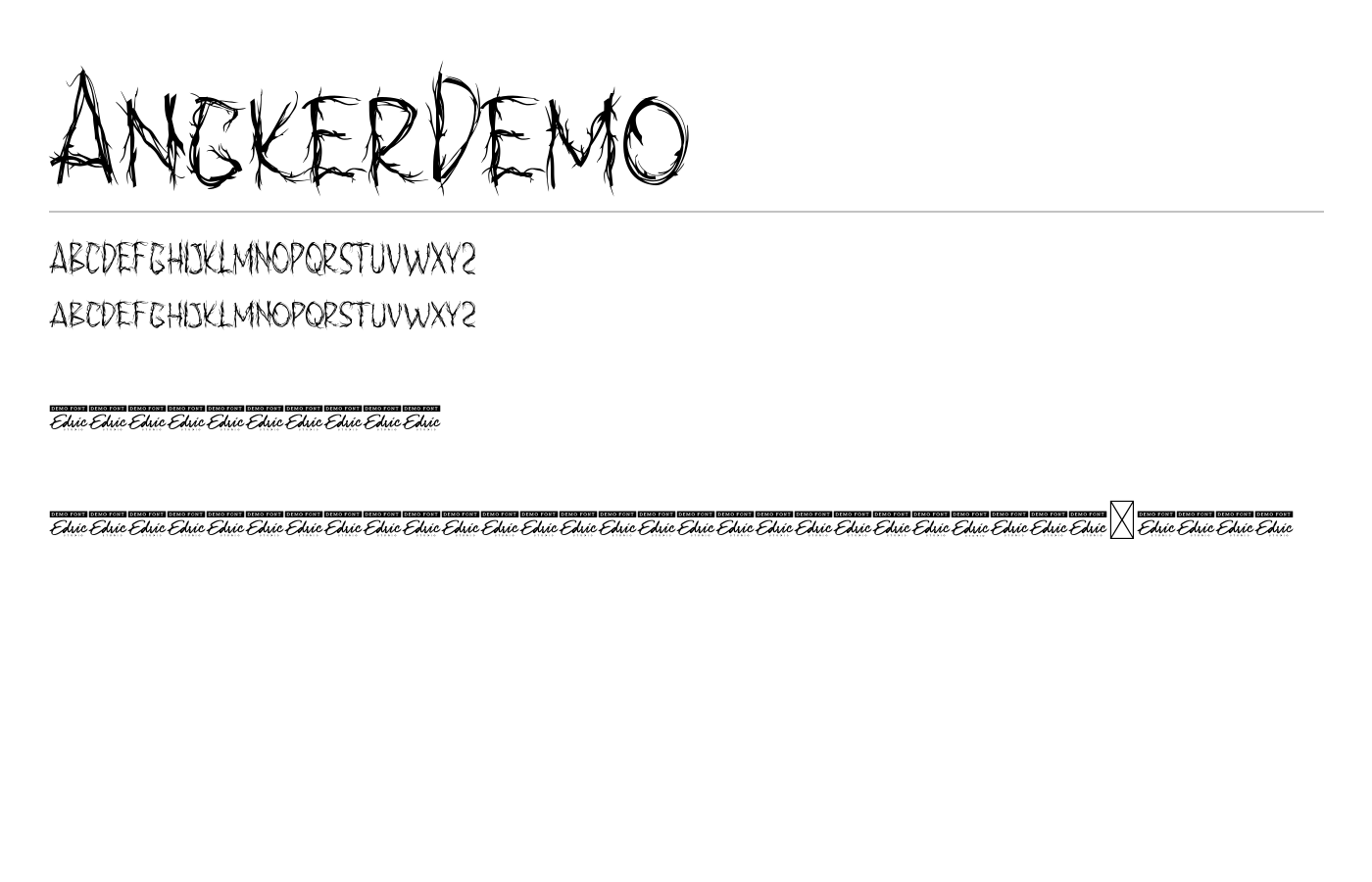
AngkerDemo is a decorative, spooky-themed font with sharp, jagged strokes that create an eerie and unsettling look, perfect for Halloween or horror-inspired designs. Its irregular, hand-drawn style adds a raw, expressive feel that works best for eye-catching headlines, posters, and themed branding where a creepy, intense mood is desired. This font’s unique character shapes make it stand out in creative projects rather than for body text.
| Font family | AngkerDemo Font |
| Designer | Shalsha |